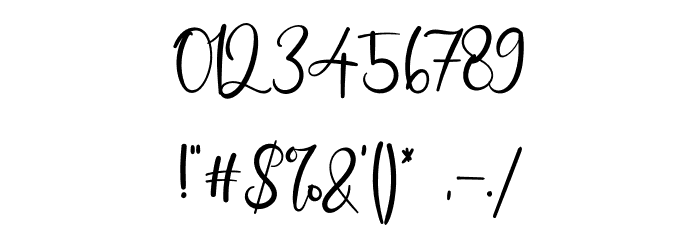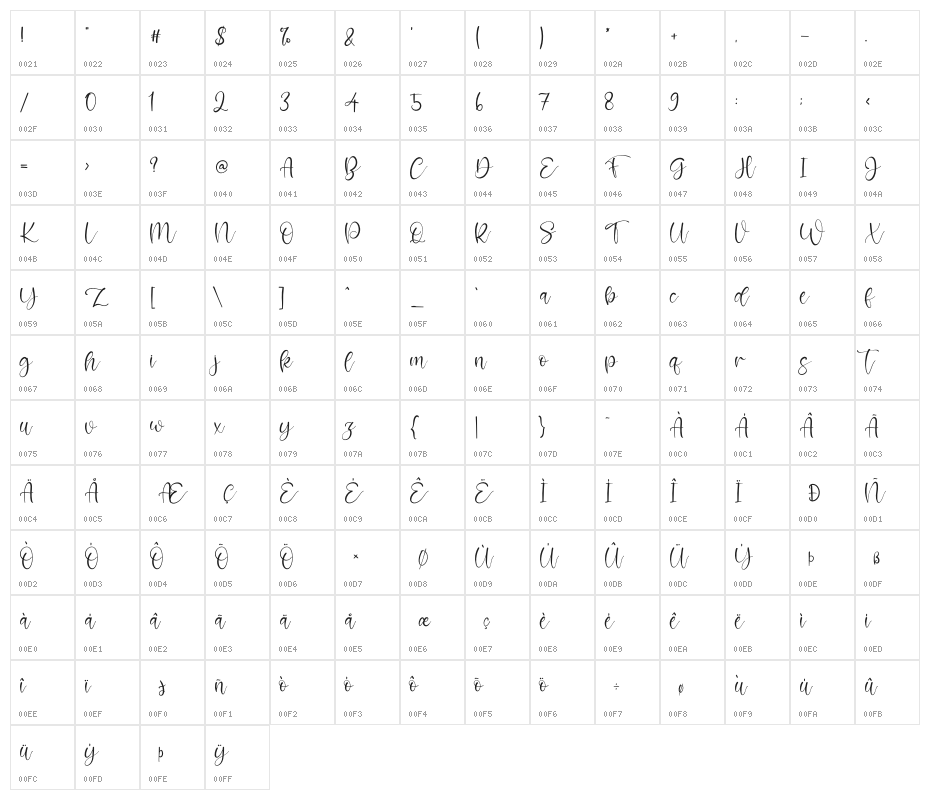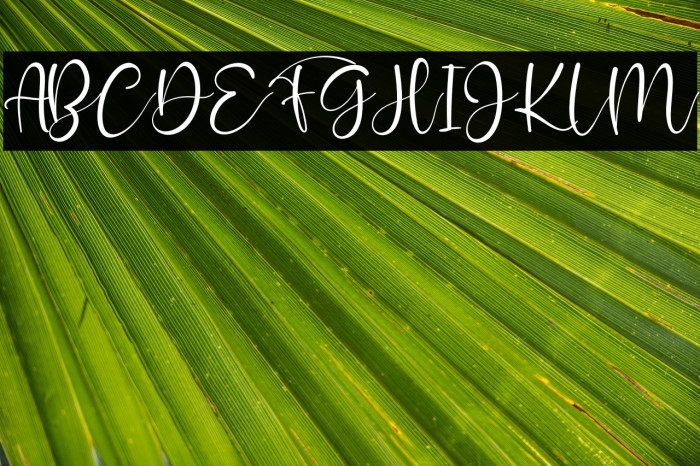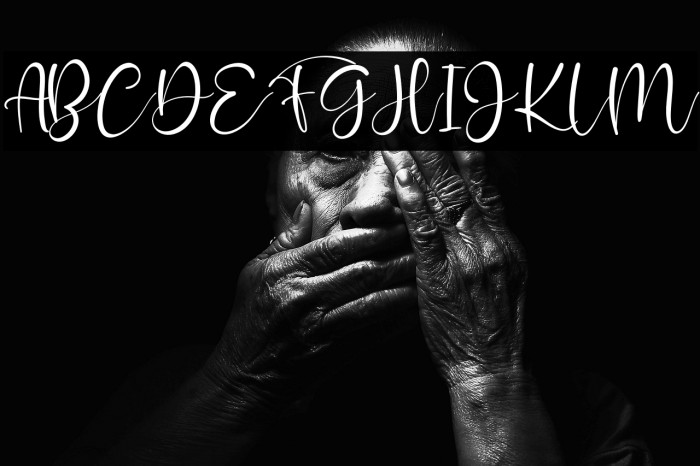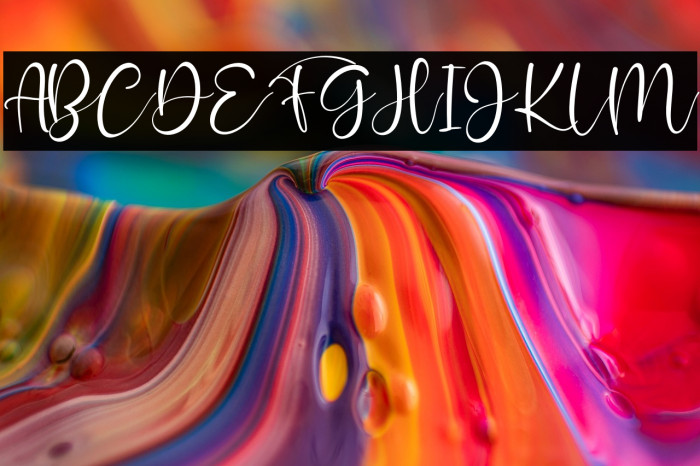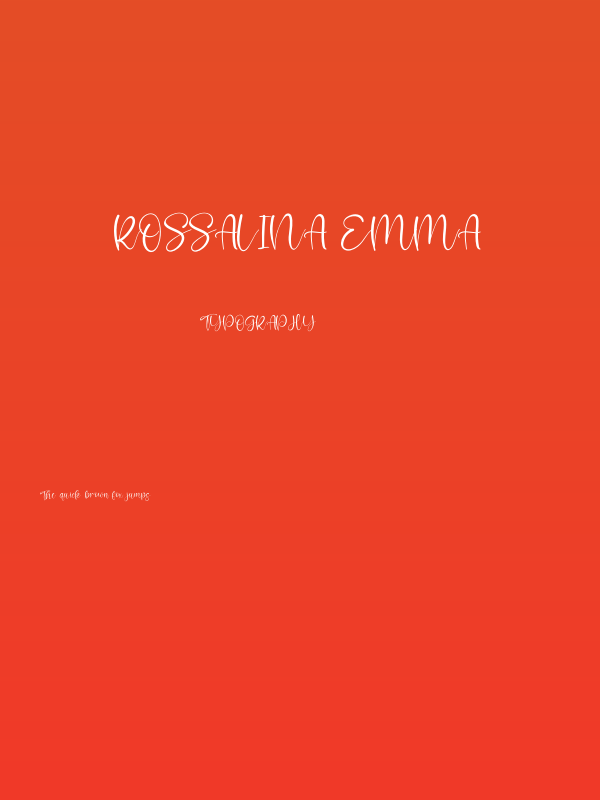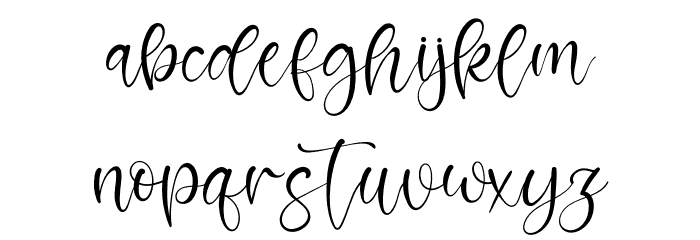
Rossalina Emma Font
Rossalina Emma Description
This font features an elegant, flowing script style that exudes a sense of sophistication and charm. The characters are interconnected with graceful, sweeping strokes, creating a harmonious and fluid appearance. The uppercase letters are ornate and decorative, while the lowercase letters maintain a consistent cursive flow. The numerals and special characters are designed to complement the overall aesthetic, ensuring a cohesive look across all text. This font is perfect for projects that require a touch of elegance and personality, such as invitations, branding, and decorative signage.
| Use Case | Headlines, Invitations, Branding |
| Proposed Projects | Ideal for wedding invitations, branding, greeting cards, and decorative signage. |